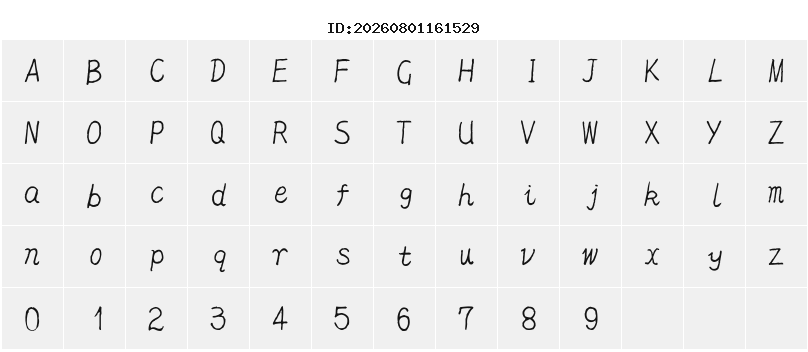
pangzhonghua4 Preview
• Font Name: pangzhonghua4
• Character Count: 59069
About pangzhonghua4.TTF
pangzhonghua4.TTF is a modern, elegant sans-serif font designed for ultimate readability and visual harmony. Perfect for branding, headlines, web design, and print materials.